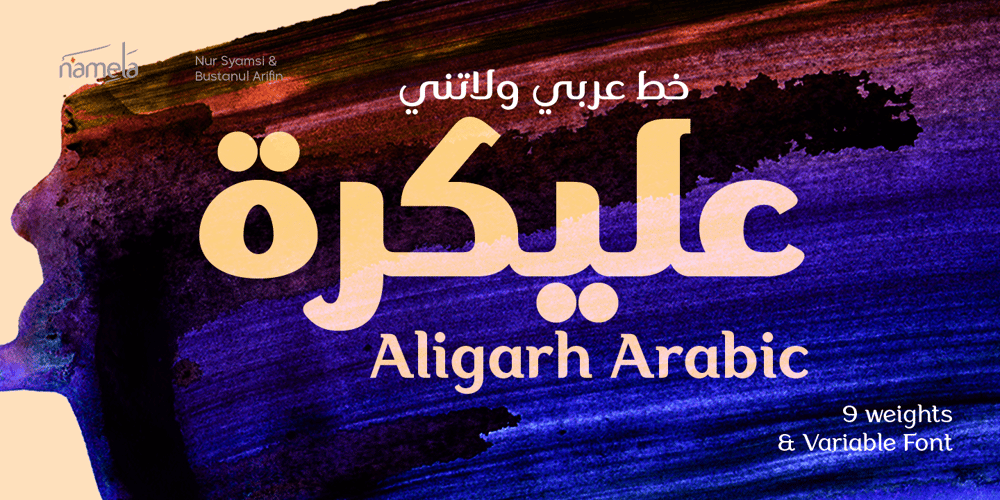
Aligarh Arabic
Aligarh Arabic font
Aligarh Arabic Font Family was designed by Nur Syamsi, Bustanul Arifin and published by NamelaType. Aligarh Arabic contains 10 styles and family package options. Aligarh Arabic is new version of Aligarh with the addition of Arabic glyphs, for Arabic, Urdu, and FarsiBasic form for arabic font is refers to the arabic kufi style, semi-slab serif font formed with a smooth rounded bracket whose edges end with unique shapes, an exploration of combining unique styles in a typefaces to harmony with Latin version.